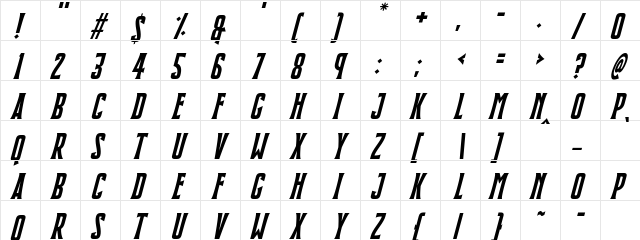
Blackmoon Quest Italic
Design Context for Blackmoon Quest Typeface
Blackmoon Quest is a composed and adaptable typeface that performs quietly and consistently across a wide range of design contexts. The dynamic lean of this cut emphasises speed and emphasis in any layout.
Pro Tip: Use Blackmoon Quest for emphasis, pull quotes, and subheadings where its slanted energy can add rhythm to the layout.